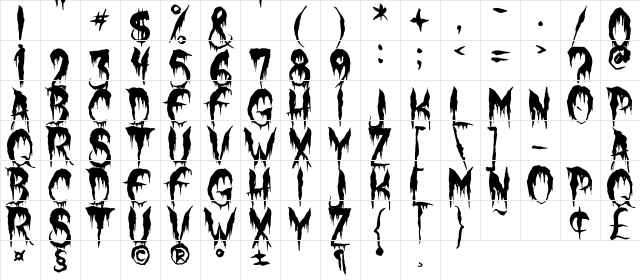
Werewolf Moon Regular Free Font
Werewolf Moon Regular
Designer: Chad Savage
Design Context for Werewolf Moon
Werewolf Moon is a composed and adaptable typeface that performs quietly and consistently across a wide range of design contexts.